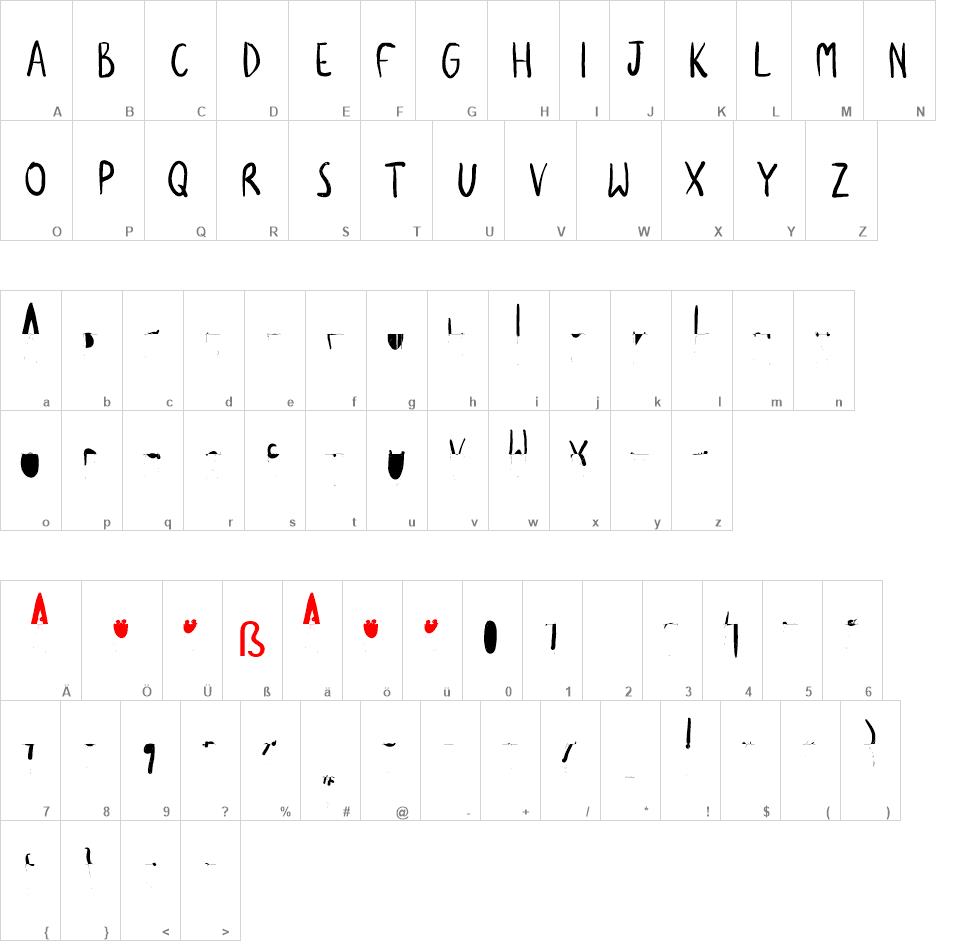
Labai
Labai  font
Labai
This is Handrawn Brush Font, great for design, element design, wedding, event, t-shirt, logo, badges, sticker, and awesome work about summer.